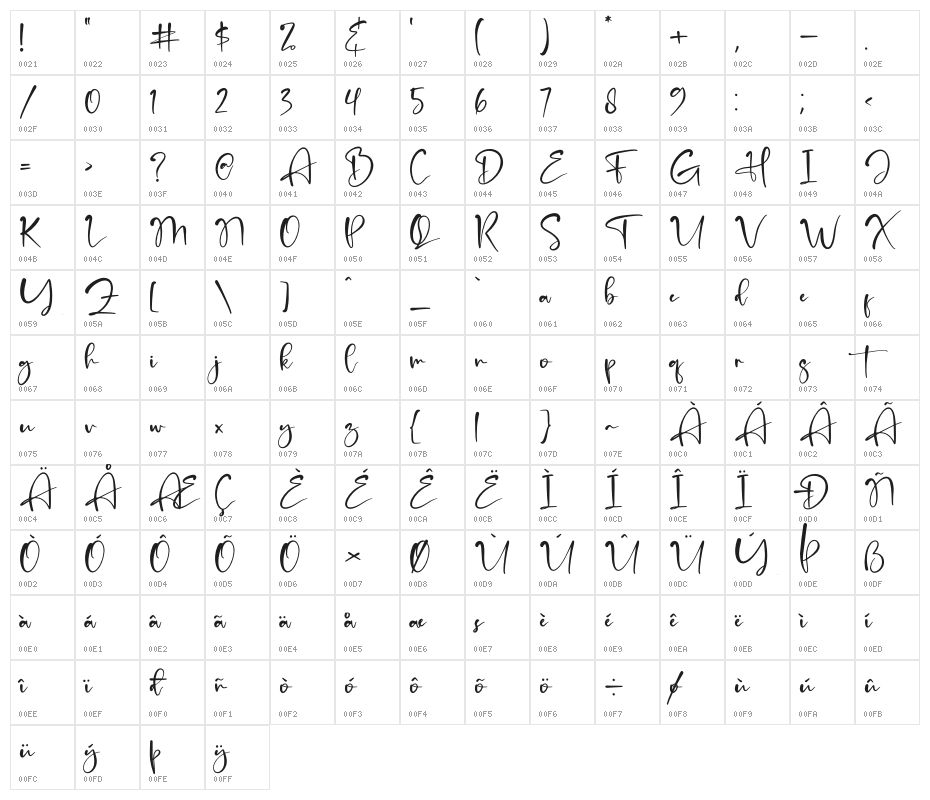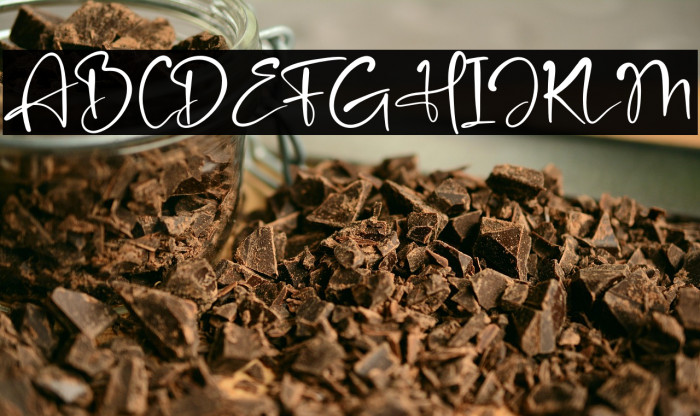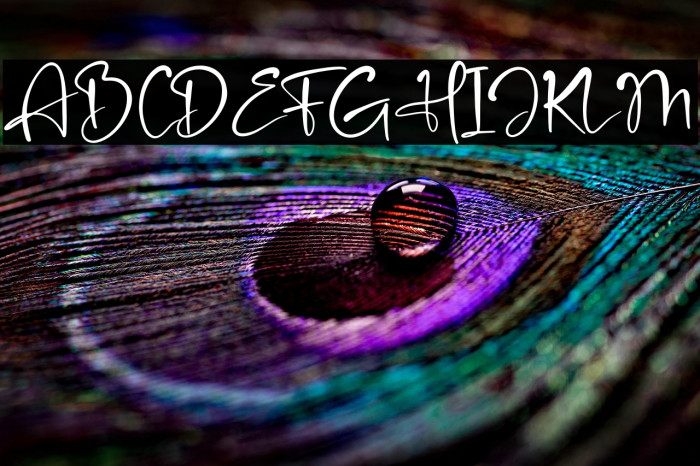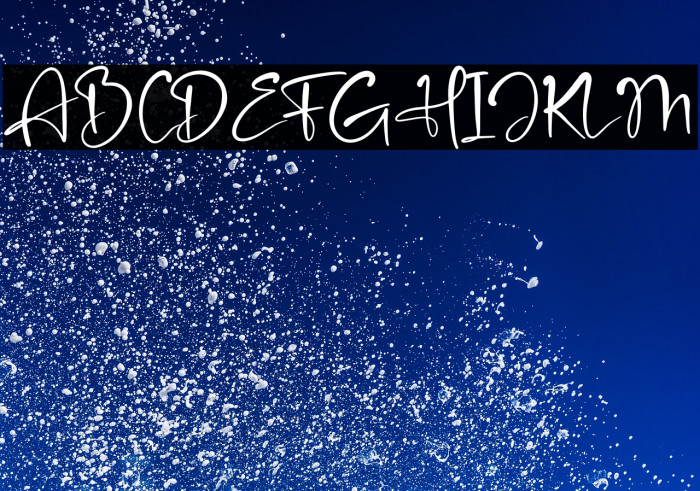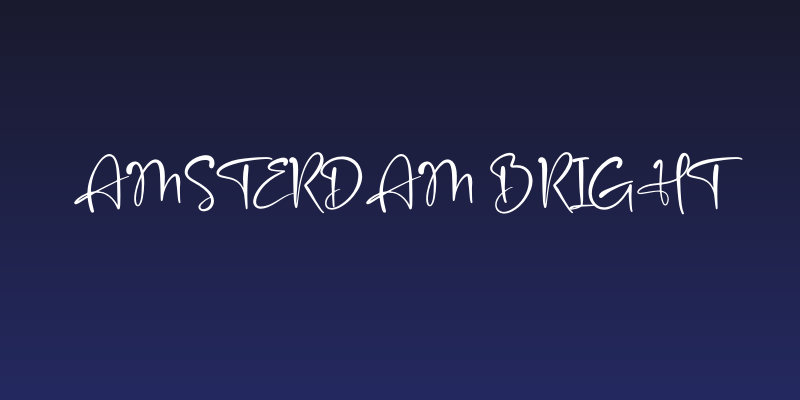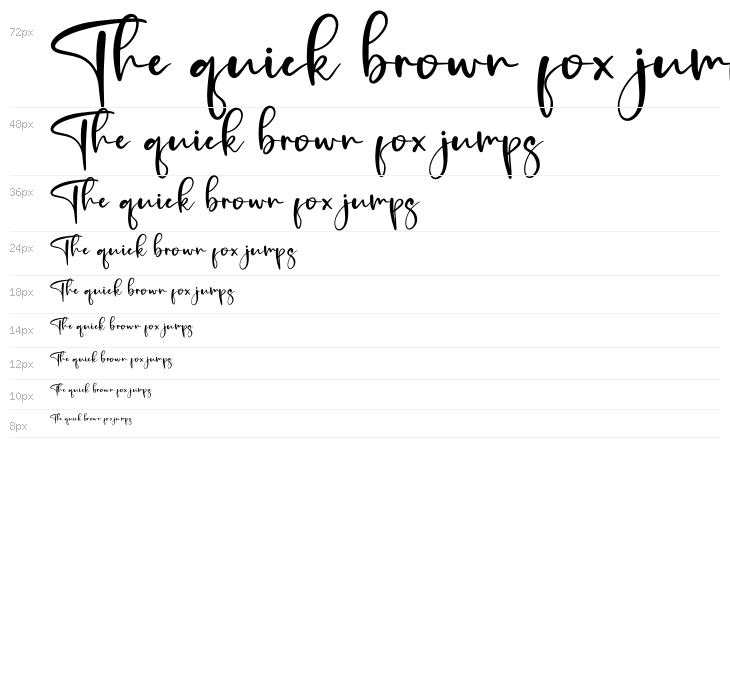
Amsterdam Bright Font
Amsterdam Bright Description
This font features a lively and expressive handwritten style, characterized by its flowing and dynamic letterforms. The uppercase letters exhibit a playful yet elegant flair, with varying stroke widths that add a sense of movement and rhythm. The lowercase letters maintain a consistent style, complementing the uppercase with their smooth curves and loops. The numerals are bold and slightly whimsical, fitting seamlessly with the overall aesthetic. Special characters are creatively designed, enhancing the font's artistic appeal. This font's unique style makes it suitable for projects that require a personal and artistic touch.